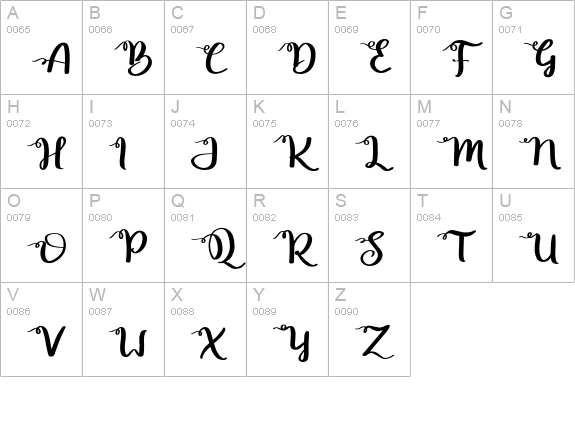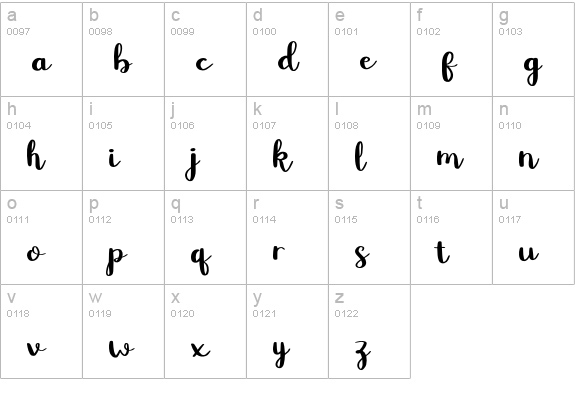
Betty Rose font exudes a delicate charm with its elegant strokes and graceful curves. This timeless typeface is perfect for adding a touch of sophistication to any project, whether it be invitations, branding, or editorial designs. Its classic yet modern design makes it versatile and suitable for a wide range of applications.